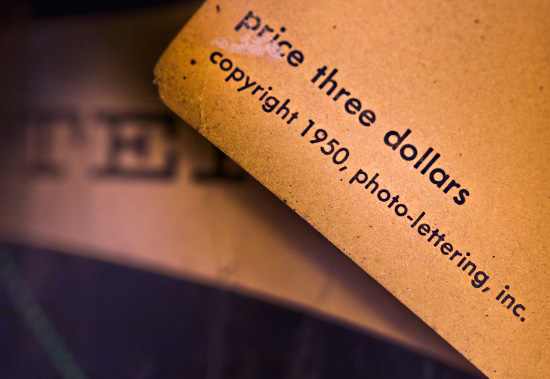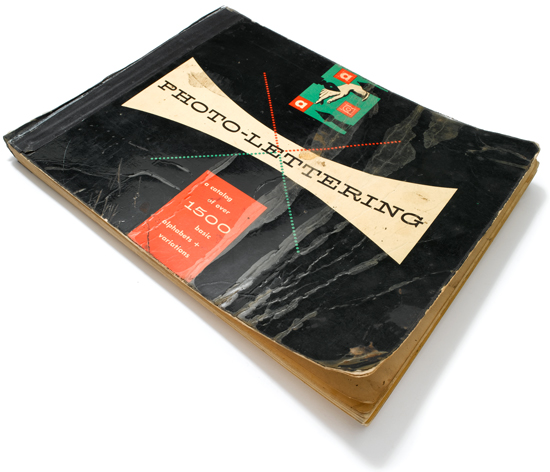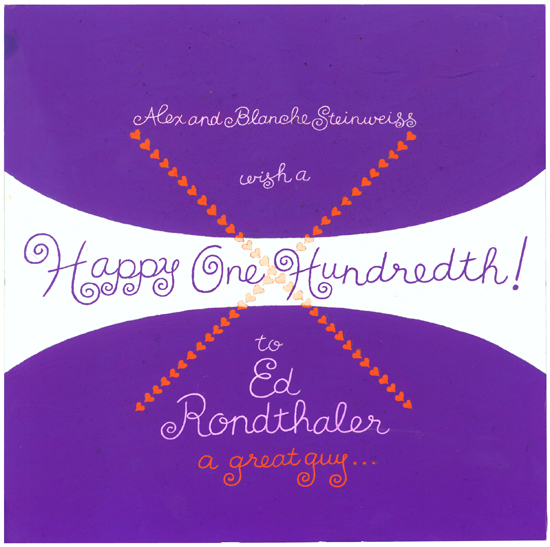
Photo-Lettering’s endless cavalcade of logos would make any modern branding “expert” cringe. One marque that stood the test of time, however, was Alex Steinweiss’s bowtie design that first saw the light of day in his cover design for this 1950 Photo-Lettering catalog.
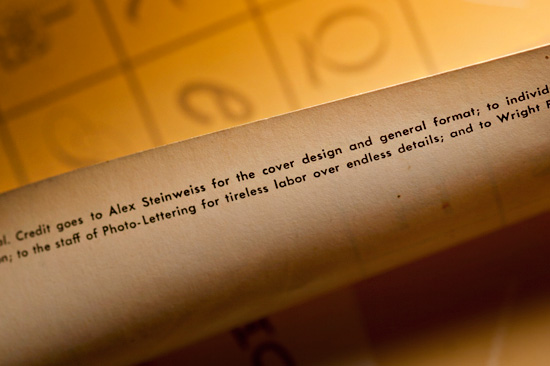
Well known in graphic design circles as the father of the modern album cover, Steinweiss was a frequent Photo-Lettering customer.
He and Ed Rondthaler became lifelong friends, and Steinweiss gave the Photo-Lettering founder one last iteration of the bowtie logo for his hundredth birthday.